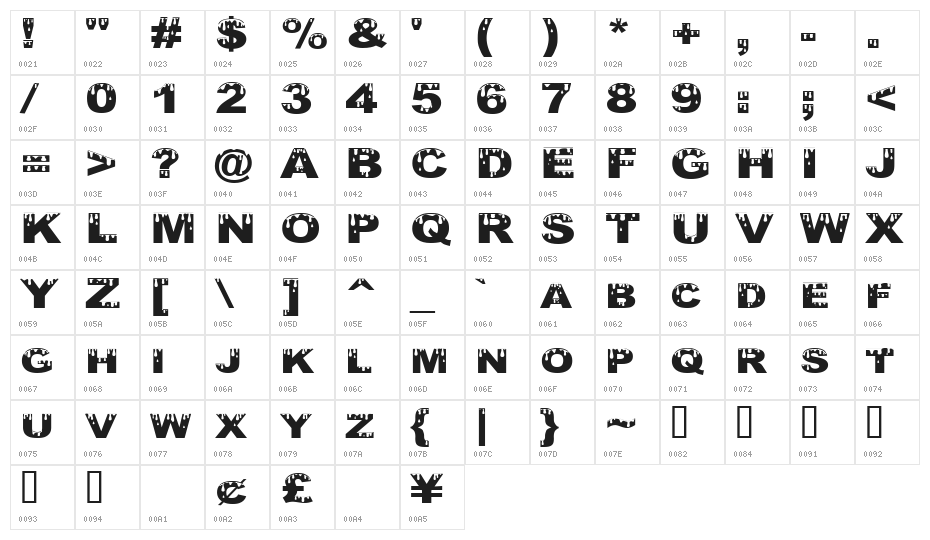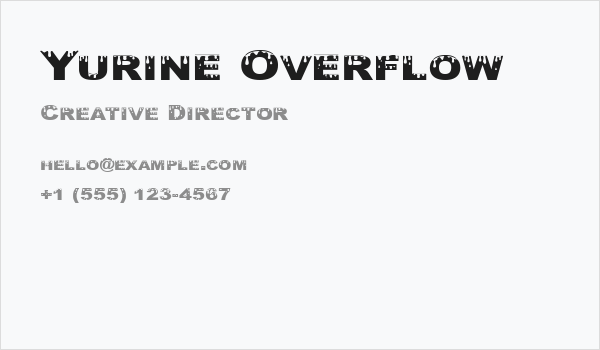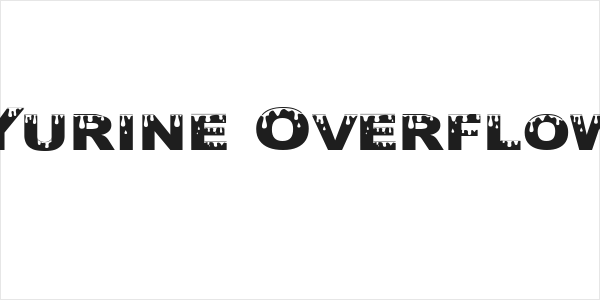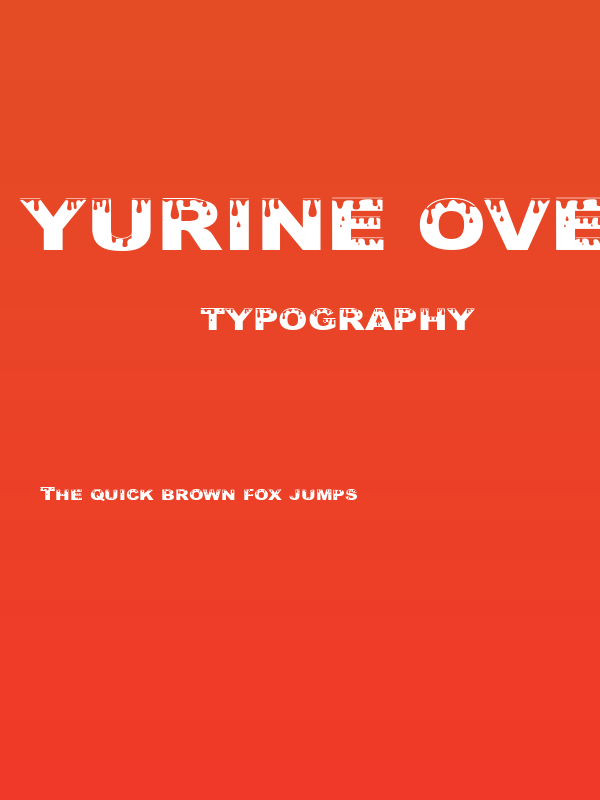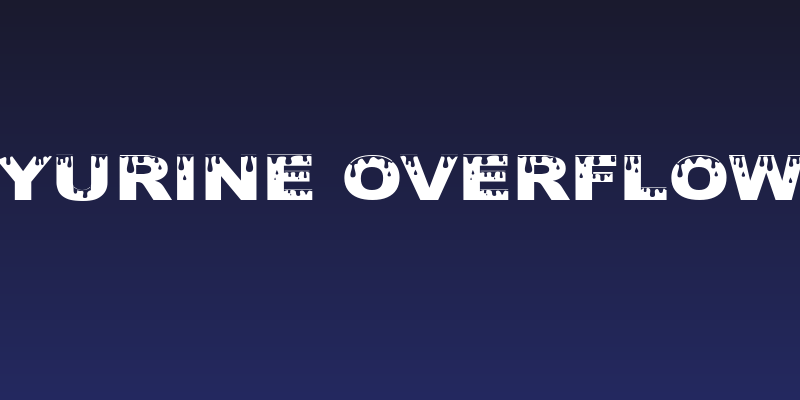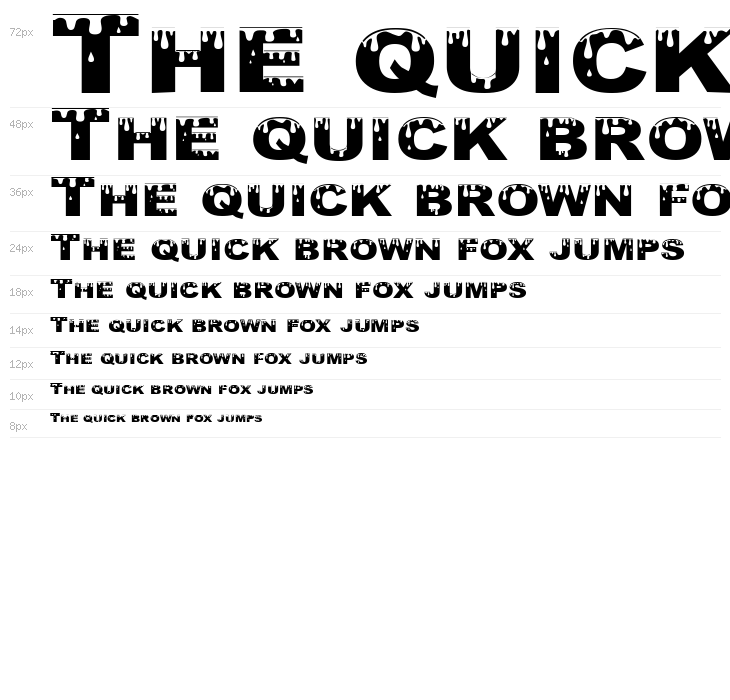
Yurine Overflow Font
Yurine Overflow Description
This font features a bold, decorative style with a unique dripping effect that gives it a playful and edgy appearance. The uppercase and lowercase letters are consistent in their boldness, with each character exhibiting a distinct pattern of drips that adds to the overall aesthetic. The numerals and special characters follow the same design, ensuring uniformity across the font. The style is eye-catching and would be suitable for projects that require a standout, artistic look.
| Proposed Projects | Ideal for Halloween-themed designs, edgy posters, album covers, and creative branding projects. |